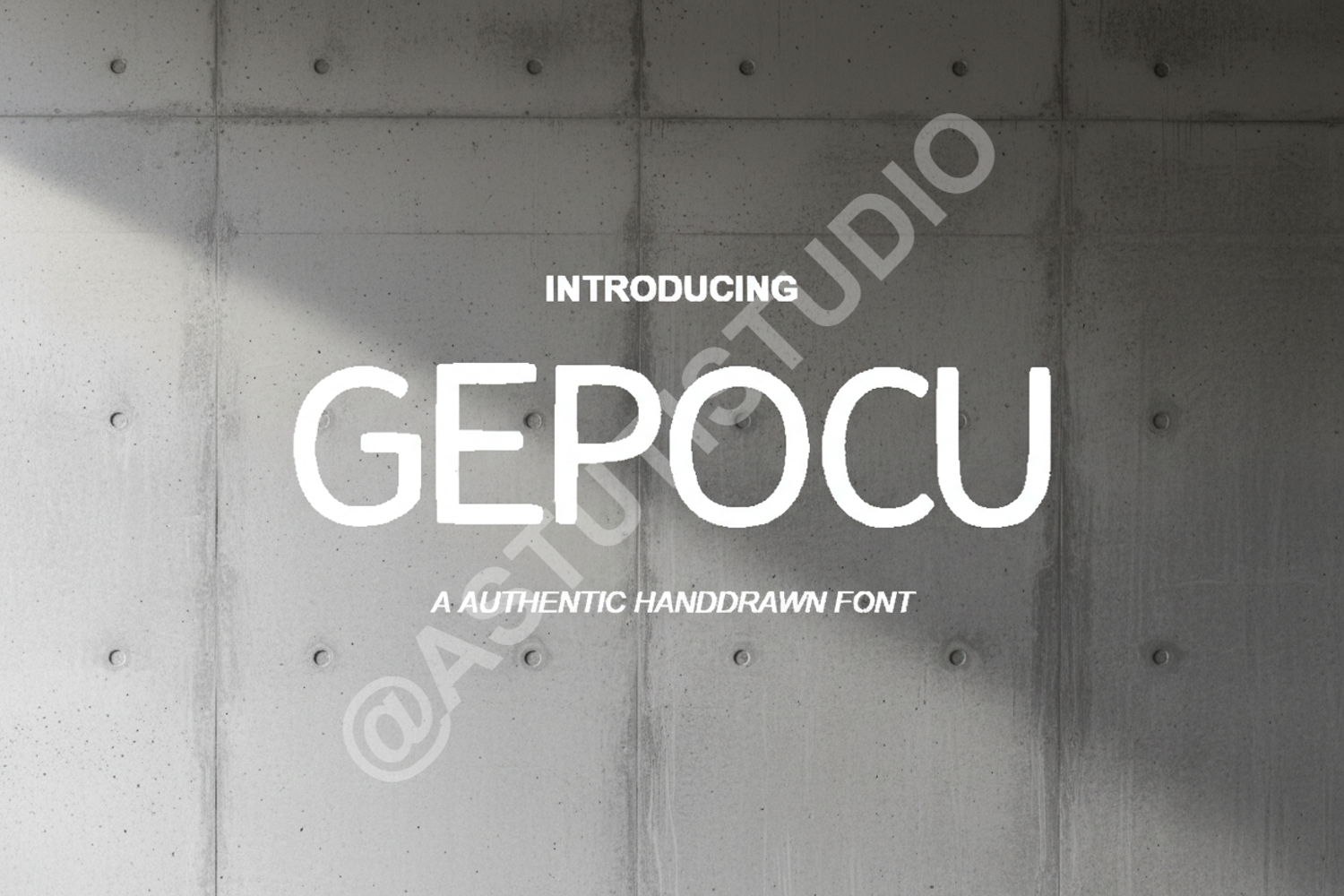
Gepocu - Modern Geometric Sans Serif
Gepocu
Elevate your creative projects with Gepocu, a premium sans serif typeface that blends geometric precision with contemporary elegance. Designed for high-end branding and professional design work, Gepocu offers a clean and sophisticated look that ensures your message is delivered with clarity and style. Whether you are crafting a minimalist logo or a comprehensive corporate identity, this font provides the versatility and polish required for modern design standards.
- Comprehensive multilingual support
- Standard ligatures and alternates
- Professional Branding and Identity: Create a lasting impression with a unique and legible face.
- Modern Logo Design: Perfect for tech, fashion, and lifestyle brands seeking a minimalist edge.
- Editorial Layouts: Ideal for magazine headlines and sophisticated spreads.
- Website Headers: Ensure your digital presence is crisp and professional across all devices.
- High-End Social Media Graphics: Stand out in the feed with clean, high-impact typography.
- Corporate Stationery: Bring a sense of modern authority to business cards and letterheads.